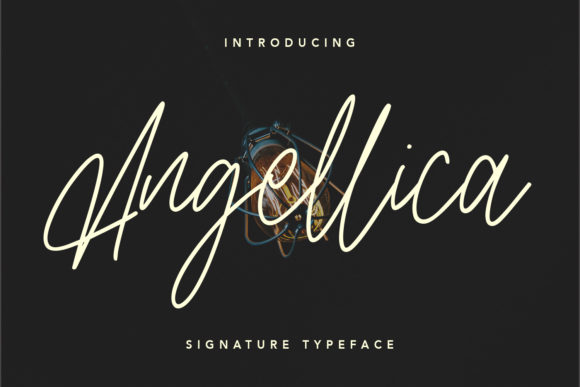
The Designer’s Delight: Angellica Font
First Impressions: A Timeless Style
Angellica Font is described as a flowing handwritten font with an elegant touch, perfect for your favorite projects. And I couldn’t agree more! Its incredibly distinct and timeless style makes it perfect for creating spectacular designs that will leave a lasting impression. Whether you’re a designer, crafter, or creative hobbyist, Angellica Font is sure to become your new go-to font.
- ✨ Elegant and flowing script that’s perfect for branding, packaging, and advertising projects
- 💫 Beautifully crafted with attention to detail, making it perfect for high-end designs
- 🎨 Versatile and can be used for a wide range of projects, from wedding invitations to business cards
While Angellica Font is an amazing font, there are a few things to keep in mind: 🤔
- ⚠️ Some letters may not connect perfectly, which can affect the overall flow of the text
- ⚠️ Not suitable for body text, as it’s best used for headlines, titles, and short paragraphs
The Designer Inspiration
Angellica Font was created by a talented designer who wanted to craft a font that would evoke the feeling of elegance and sophistication. With its flowing script and beautiful letterforms, it’s clear that the designer was inspired by the classic calligraphy of the past. While the designer’s backstory is shrouded in mystery, it’s clear that they poured their heart and soul into creating a truly special font.
Q: What is Angellica Font?
A: Angellica Font is a flowing handwritten font with an elegant touch, perfect for a wide range of design projects.
Q: Is Angellica Font suitable for body text?
A: No, Angellica Font is best used for headlines, titles, and short paragraphs. It’s not suitable for body text due to its elegant, cursive nature.
Q: Does Angellica Font come with OpenType features?
A: Yes, Angellica Font comes with a range of OpenType features, including glyphs, stylistic alternates, and swashes.